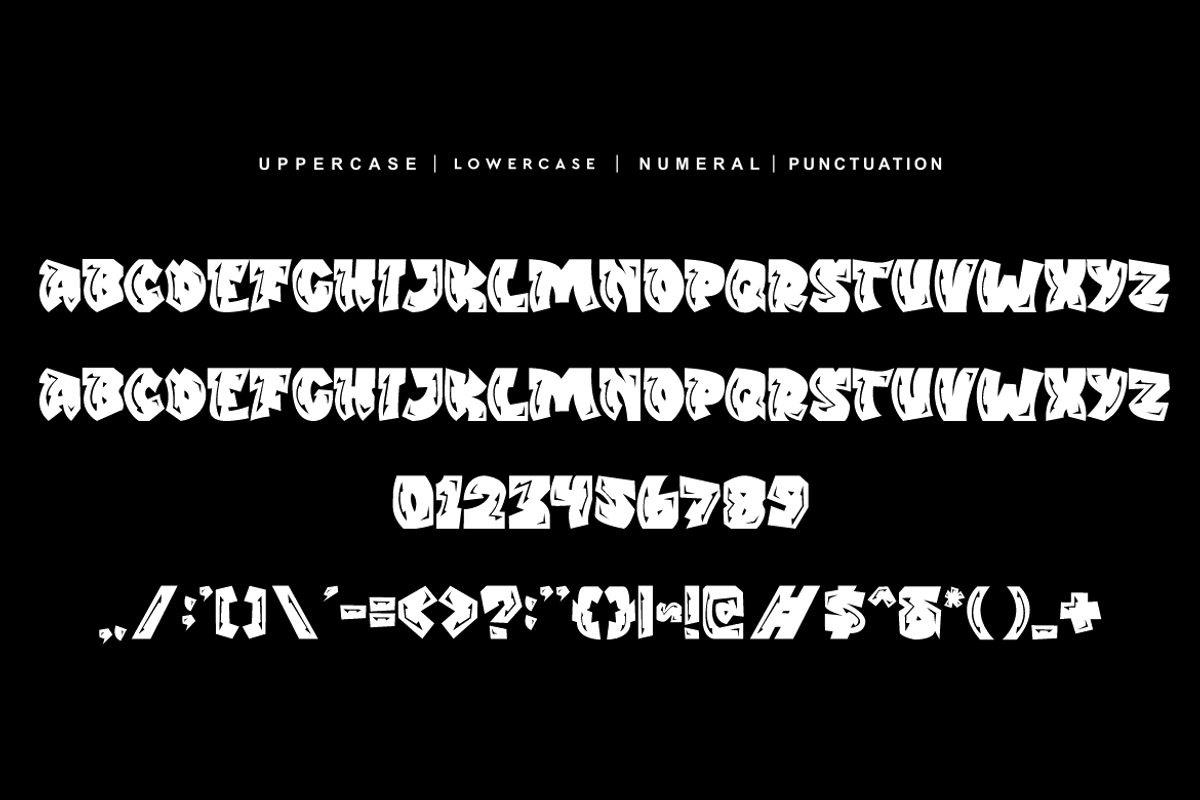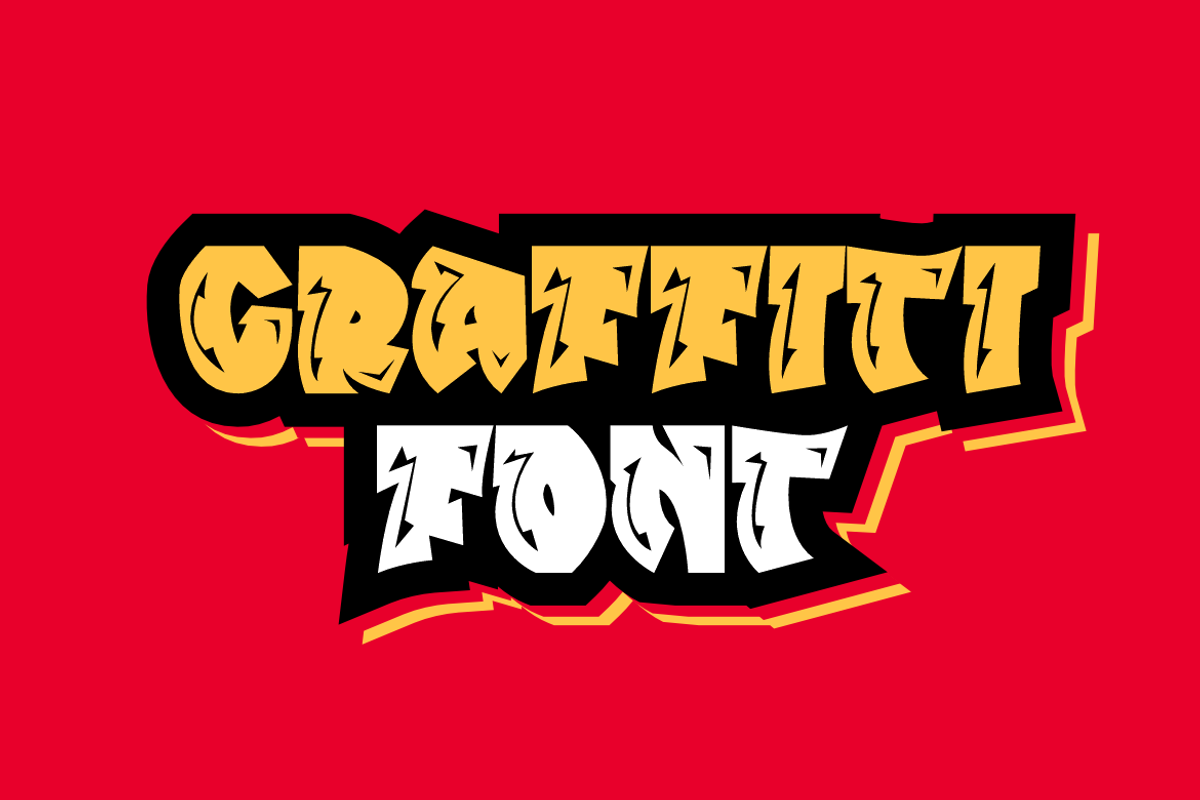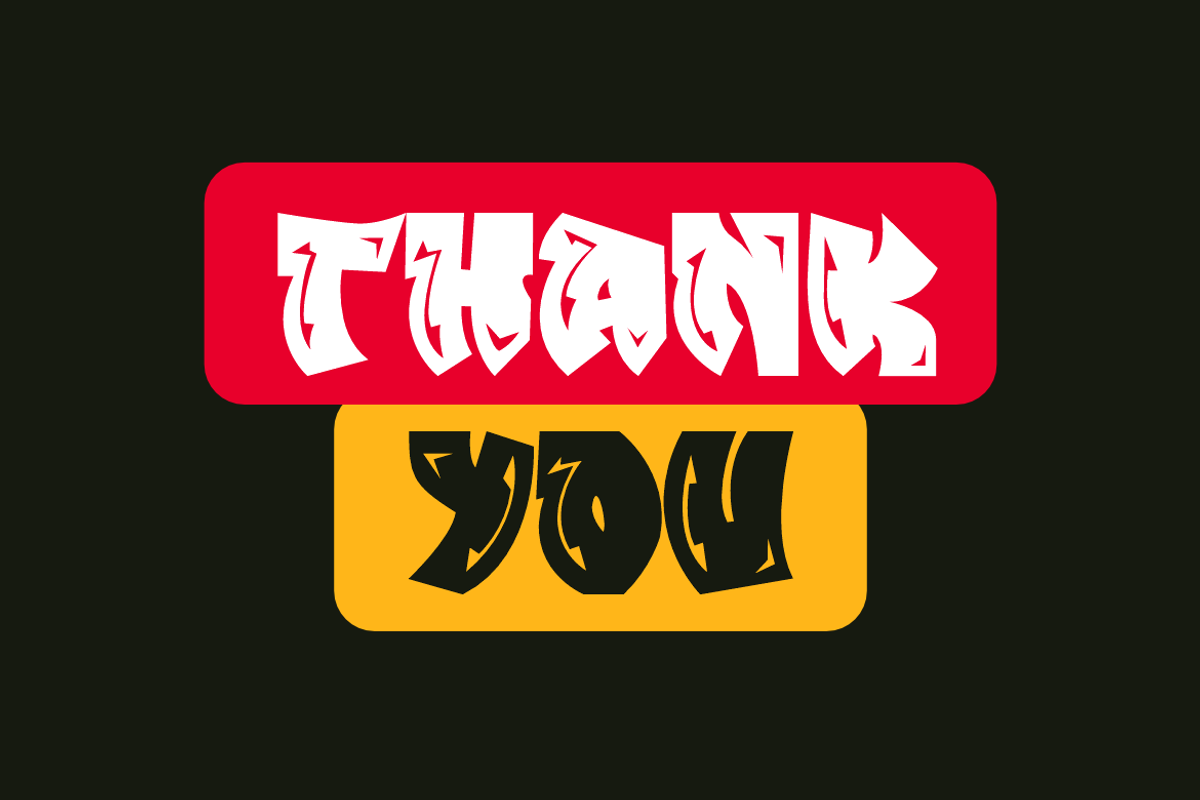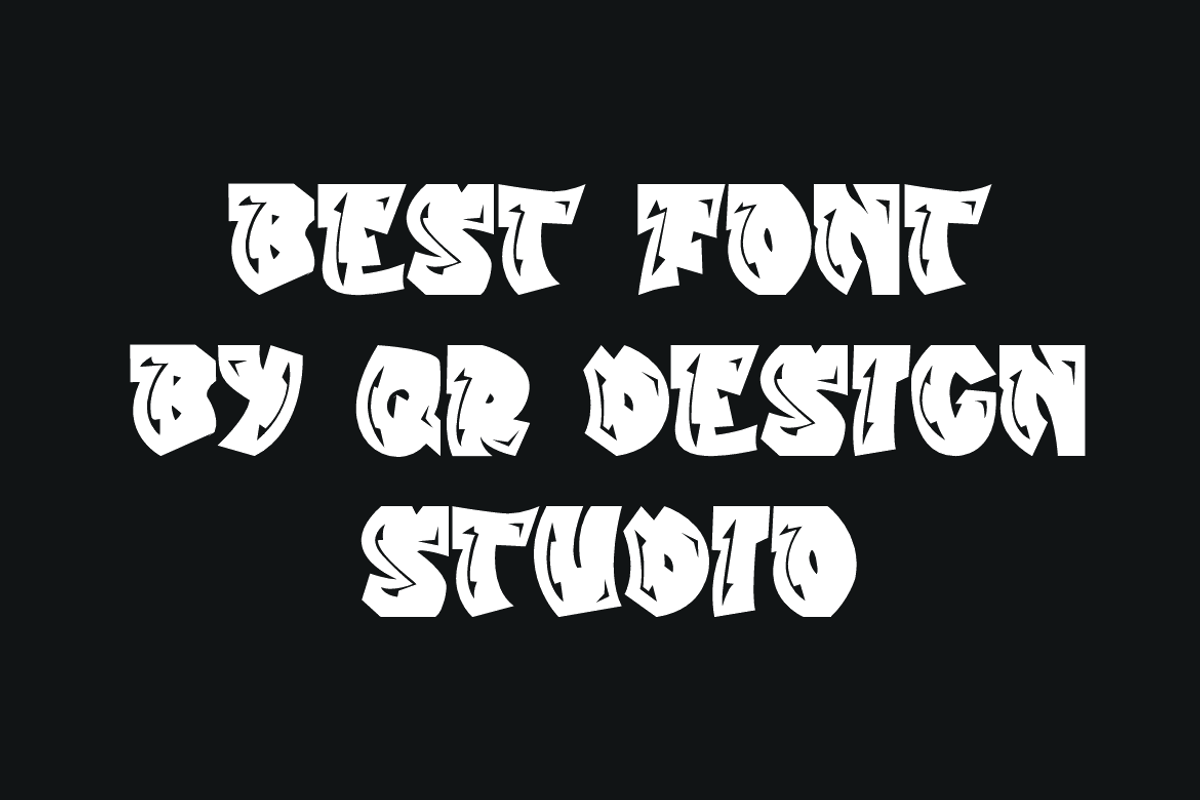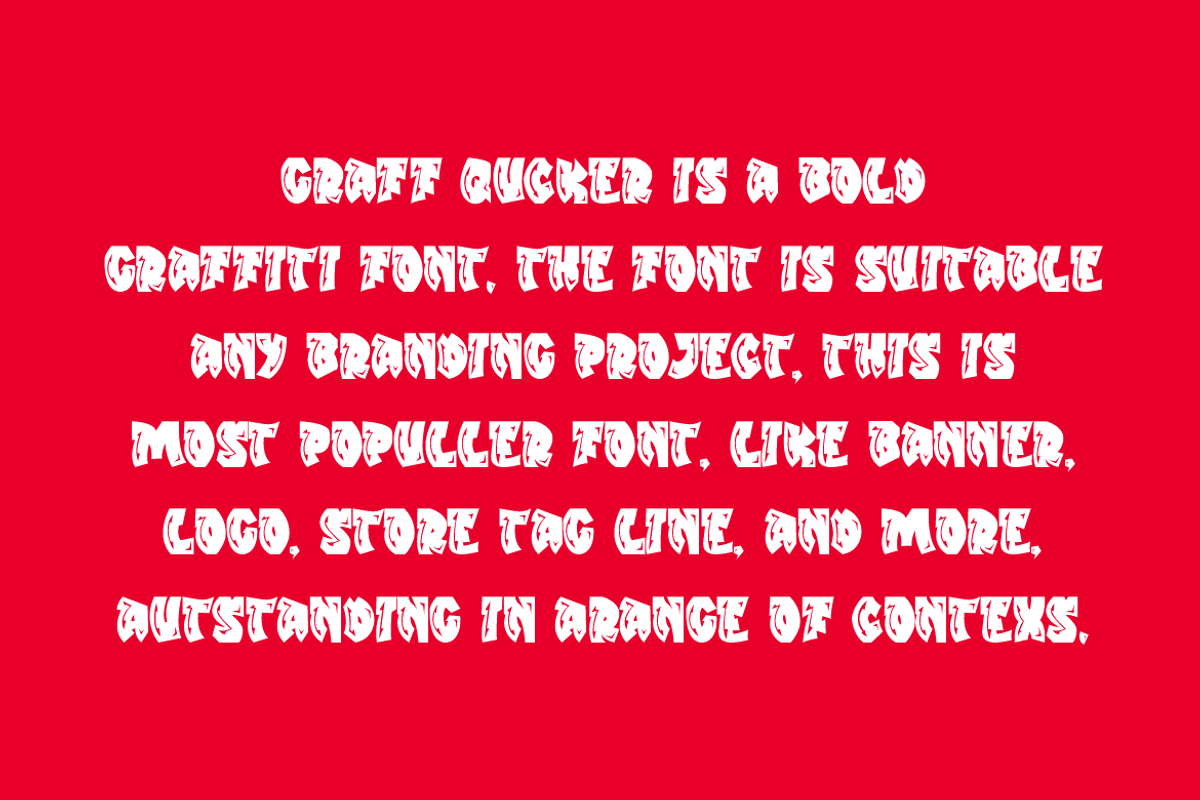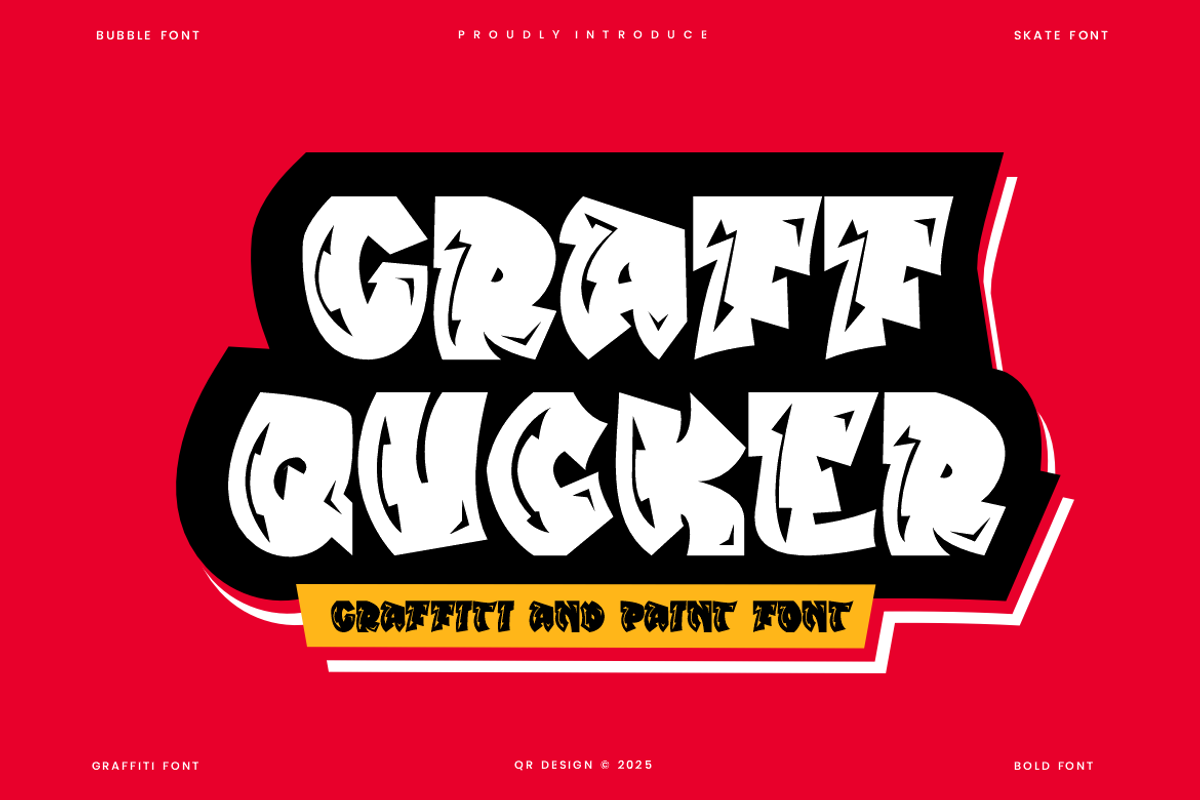
Graff Qucker - Graffiti Font
Graff Qucker Font is a graffiti and authentic display font. The font is suitable for any branding project like poster, logo, sport, and many more. Outstanding in a wide range of contexts.